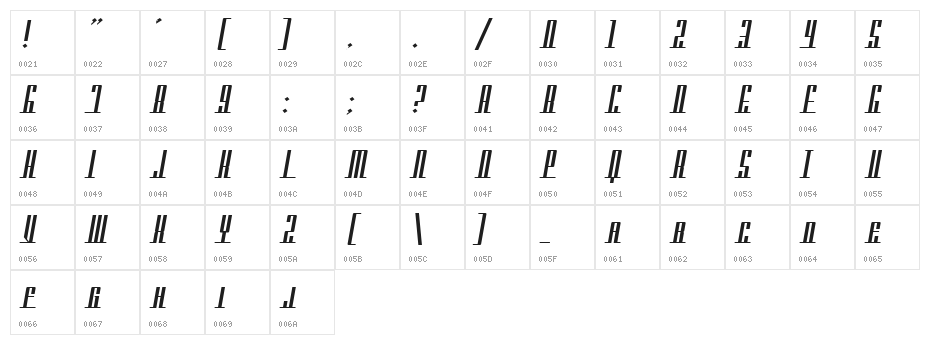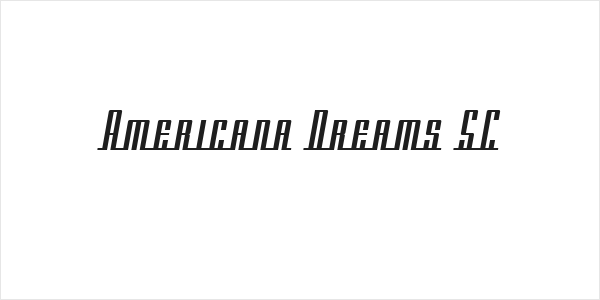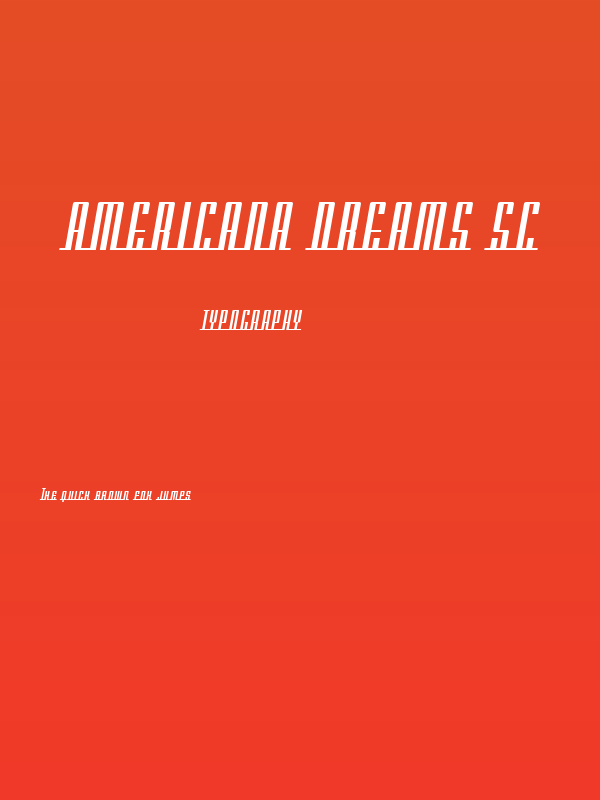
Americana Dreams SC Font
Americana Dreams SC Description
This font features a bold and dynamic design with a strong geometric influence. The characters are tall and narrow, with sharp angles and a distinct slant that gives a sense of motion and energy. The uppercase letters are particularly striking, with a futuristic and modern aesthetic. The numbers and special characters maintain the same angular style, ensuring consistency throughout. This font is ideal for making a bold statement and capturing attention with its unique and stylish appearance.